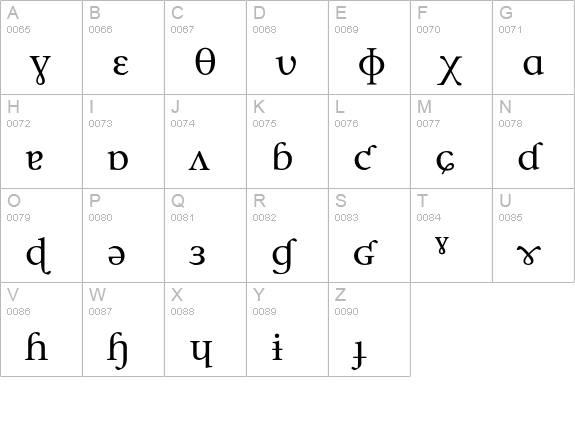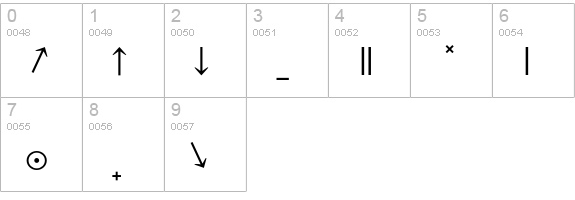
StoneSerifPhonEF-Med Font Details
StoneSerifPhonEF-Med is a versatile and elegant font that exudes a timeless charm and sophistication. Its sturdy serifs and medium weight make it perfect for a wide range of design projects, from branding to editorial design. This font strikes the perfect balance between traditional and modern, making it a go-to choice for designers looking to add a touch of refinement to their work. What sets StoneSerifPhonEF-Med apart is not just its classic design, but also the fact that it is available for free download at FontsMarket.com. This means that you can start using this high-quality font in your projects without any cost, making it a valuable addition to your font library. Whether you're working on a print project or a digital design, StoneSerifPhonEF-Med is sure to elevate your work with its timeless appeal and impeccable craftsmanship. Download it today and add a touch of sophistication to your designs.